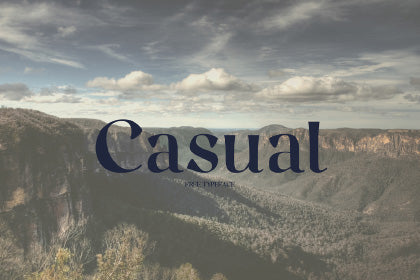
Free casual serif typeface for graphic designers that need to present their work in a professional way. Free Design Resources has created this amazing and beautiful typeface. Showcase your designs like a graphic design pro by adding a new touch with this fancy font.